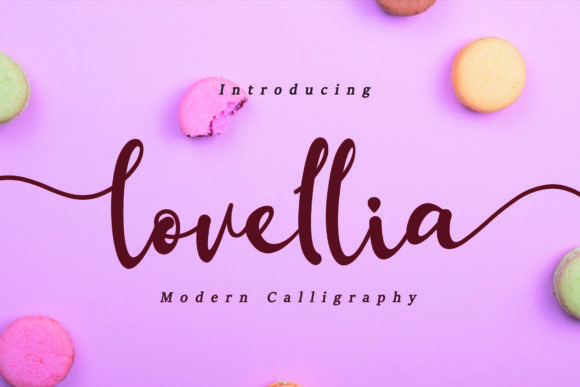
Feast your eyes on Lovellia Font, a captivating script font that exudes elegance and charm. Its graceful strokes and playful swashes add a touch of whimsy to any design. Picture your words dancing across the page, leaving a trail of enchantment in their wake.
Lovellia's versatility knows no bounds. Whether you're crafting heartfelt wedding invitations, expressing gratitude with personalized thank-you cards, or creating enchanting quotes that inspire and uplift, this font has you covered. Its delicate touch adds a dash of magic to logos, business cards, and every other design that yearns for a handwritten flair.
With Lovellia as your creative companion, you'll embark on a journey of endless possibilities. Let your imagination soar as you explore new horizons of design, creating masterpieces that captivate and enchant. This font is your passport to a world of visual wonders, where your words take center stage and leave a lasting impression.
But Lovellia is more than just a font; it's an experience. Its PUA encoding opens up a treasure trove of glyphs and swashes, empowering you to unleash your creativity and add intricate details to your designs. With Lovellia as your ally, there are no limits to what you can achieve.
So why settle for ordinary when you can embrace the extraordinary? Embrace Lovellia, and embark on a creative odyssey that will leave you breathless. Let your designs blossom with beauty, originality, and a touch of pure magic.